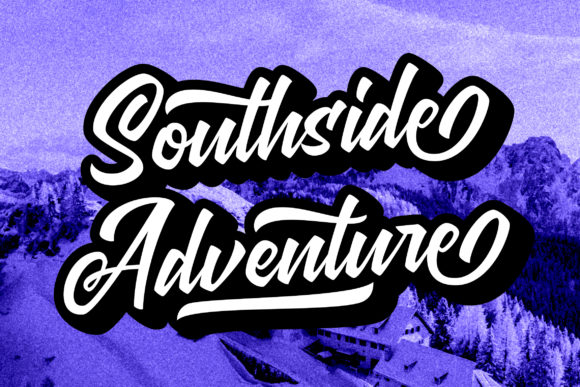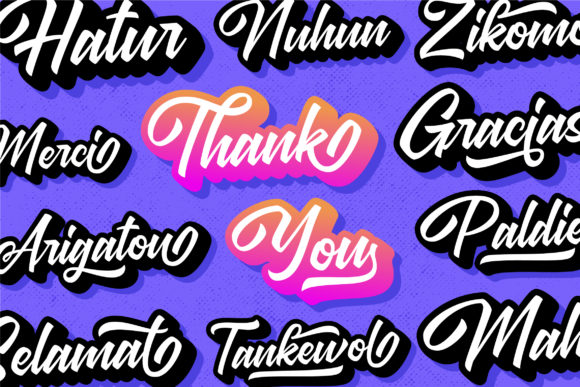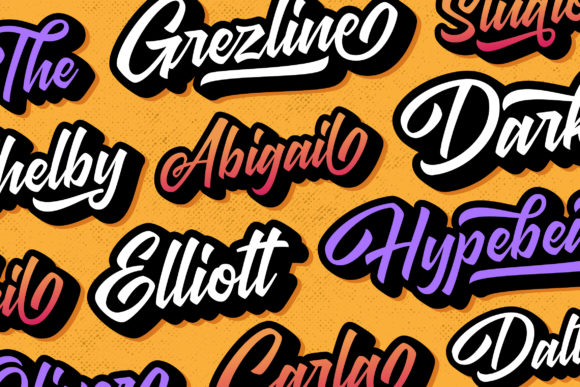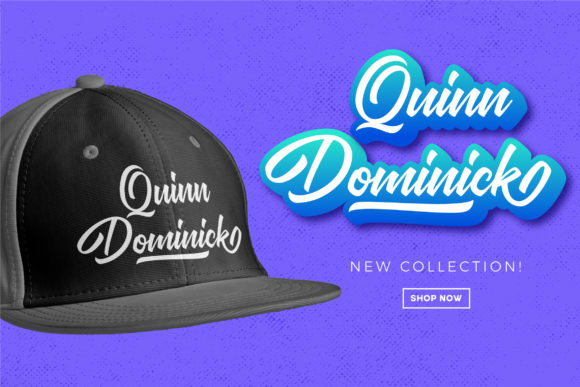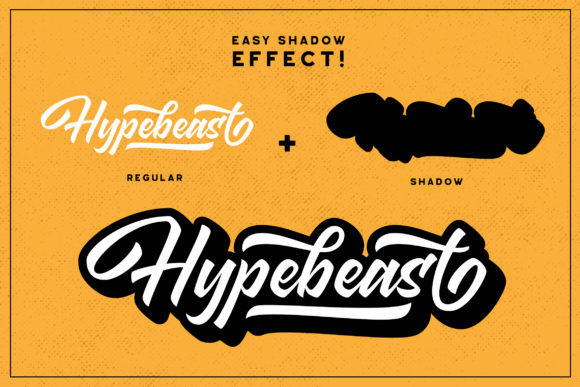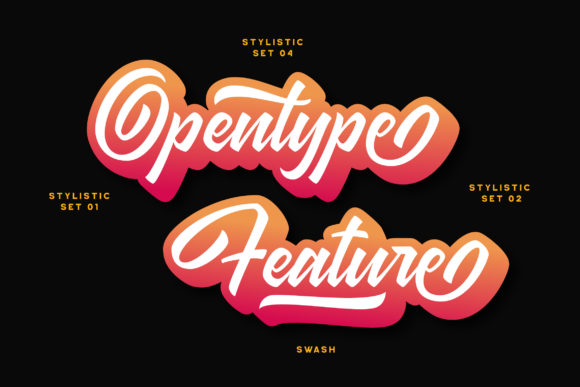
Sidney Hayden Font
About Sidney Hayden Font
Sidney Hayden is a retro styled handwritten font. Masterfully designed to become a true favorite, this font has the potential to bring each of your creative ideas to the highest level!